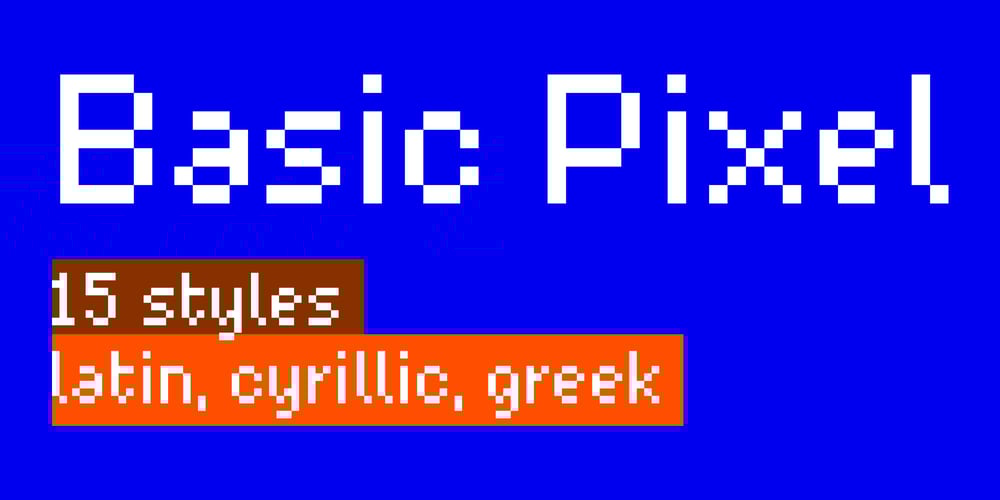
Basic Pixel Font Family was designed by Marin Damian and published by Mandarin. Basic Pixel contains 15 styles and family package options. Basic Pixel is the ideal font to inject a playful and creative energy into your designs.Featuring 15 distinct styles, it offers endless possibilities for customization. Mix, match, and experiment with different colors and combinations to craft vibrant, standout visuals that captivate and inspire. Whether you’re aiming for bold statements or subtle accents, Basic Pixel lets you explore an infinite world of design possibilities.